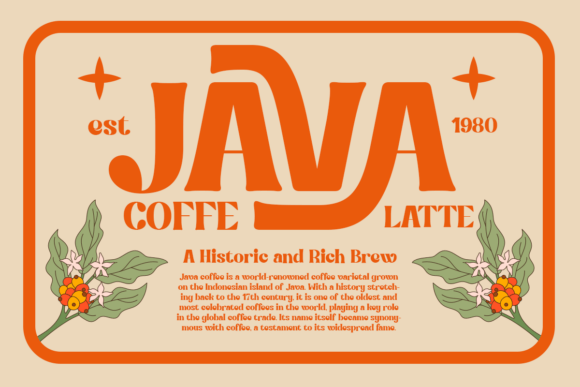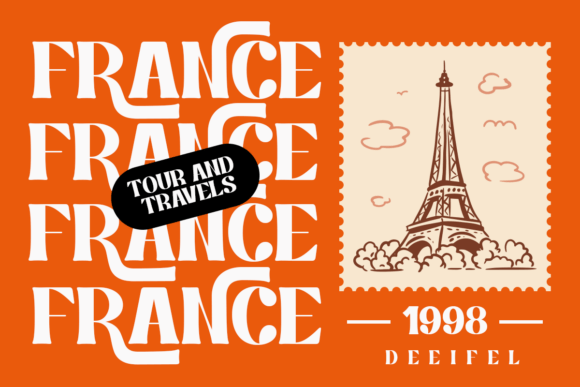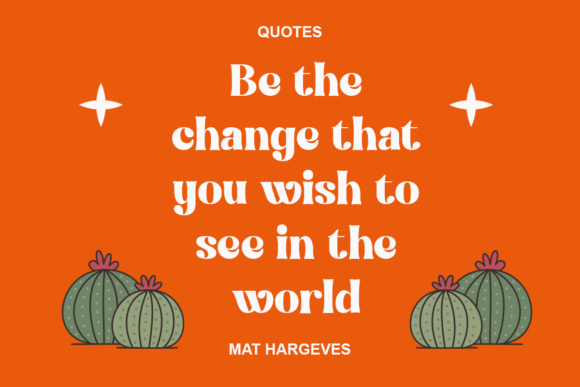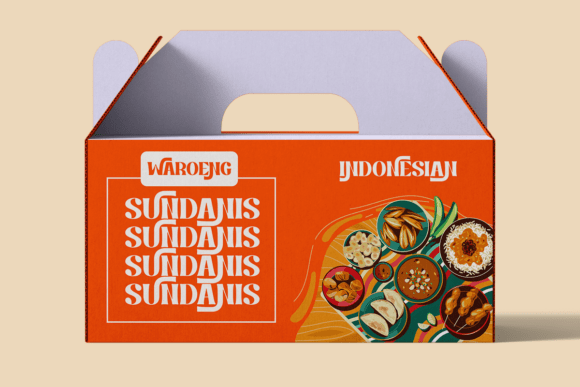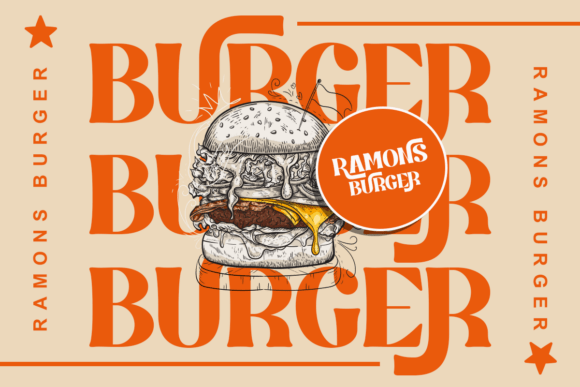
Introduction to Rolinks Font
Rolinks is a rounded display font with a bold style.
A blend of vintage charm and modern flair This typeface features strong, confident serifs that evoke a sense of nostalgia while remaining undeniably fresh.
Key Features of Rolinks Font